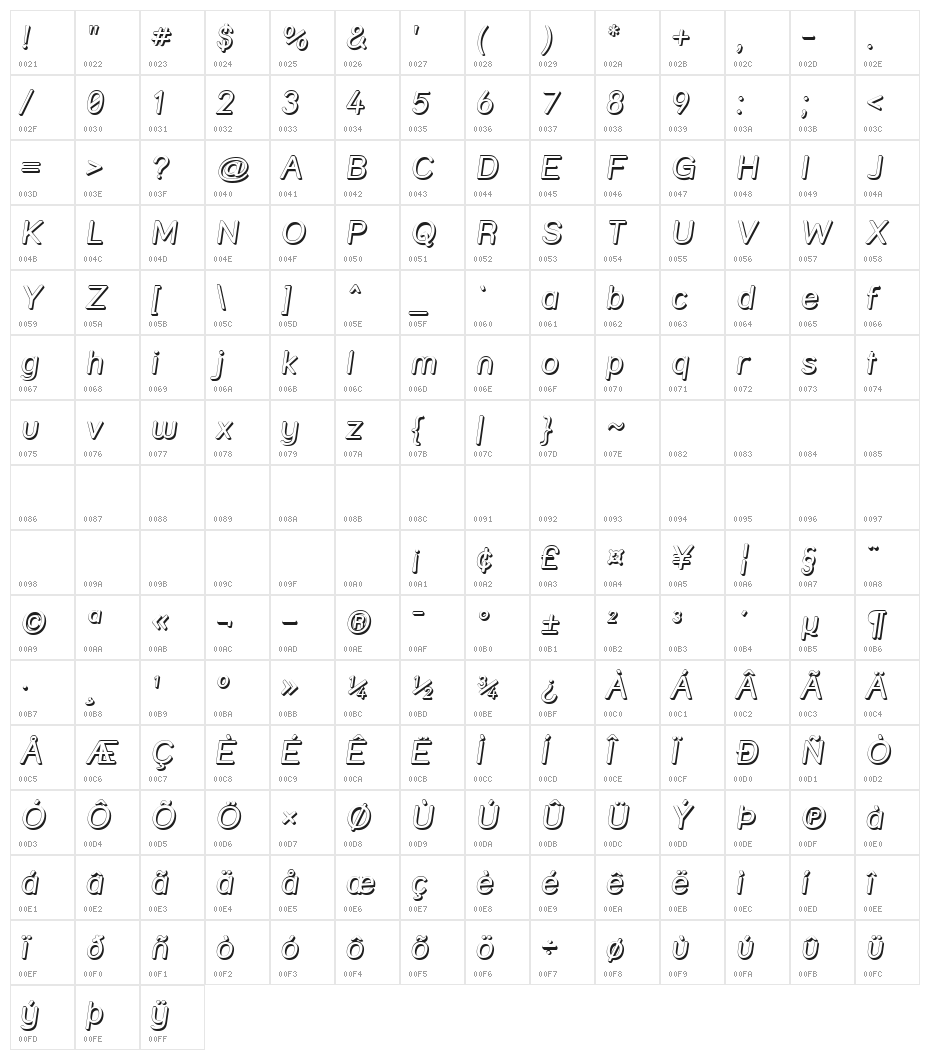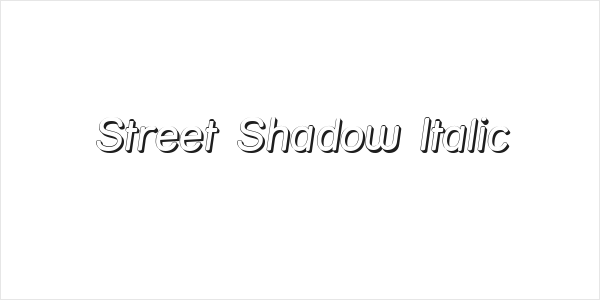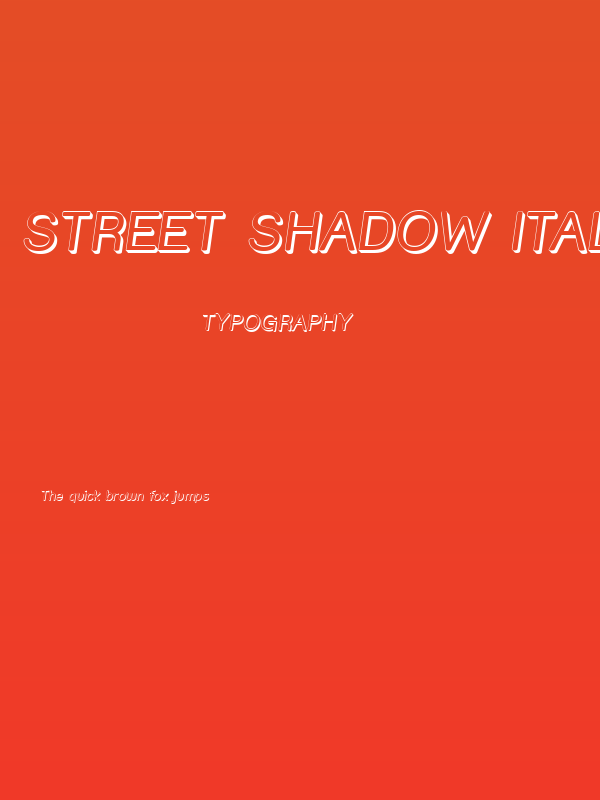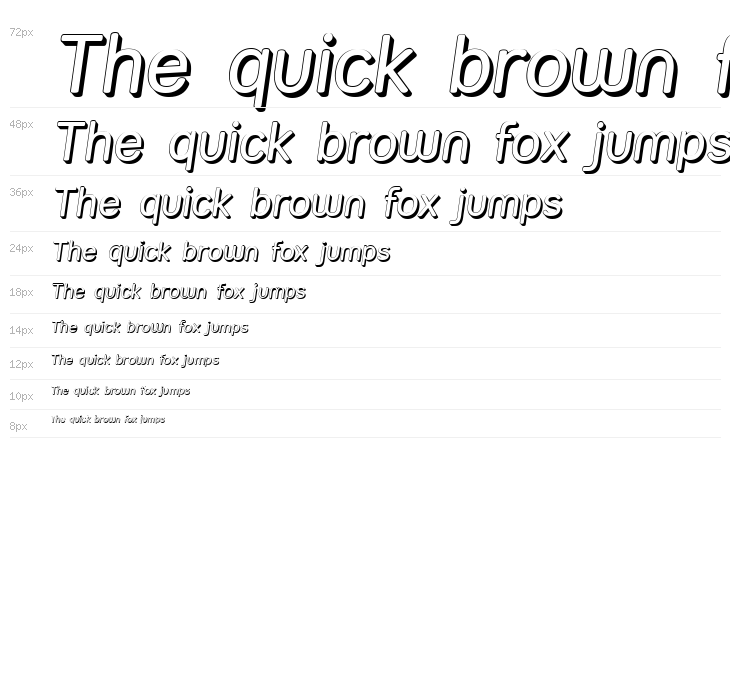
Street Shadow Italic Font
Street Shadow Italic Description
This font features a bold, italicized style with a distinct shadow effect that gives it a three-dimensional appearance. The uppercase and lowercase letters maintain a consistent slant, enhancing the dynamic look. The numerals and special characters are designed to match the overall aesthetic, ensuring uniformity across all elements. The shadow creates a sense of depth, making it ideal for eye-catching designs. The font's modern and playful style is suitable for projects that require a bold statement, such as posters, headlines, or branding materials.